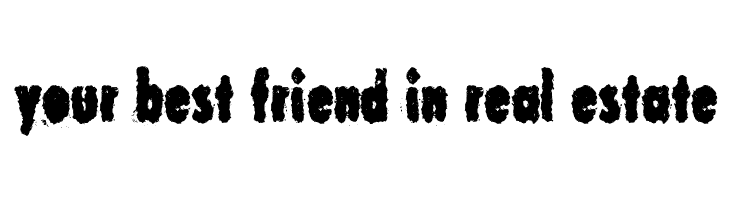
Sneflabb Normal Font
- Font: Sneflabb Normal
( Fonts by Mr Fisk - Mike Larsson - fontorama.net )
A bold, distressed font with a grungy, textured appearance.